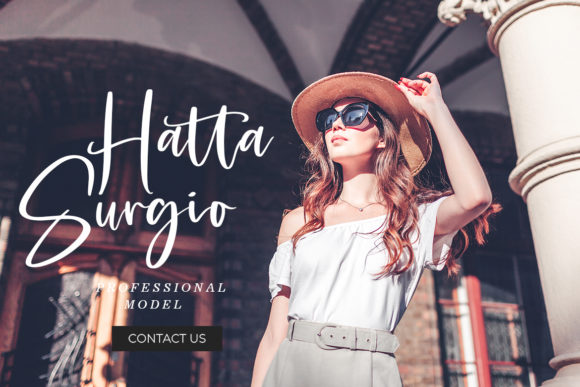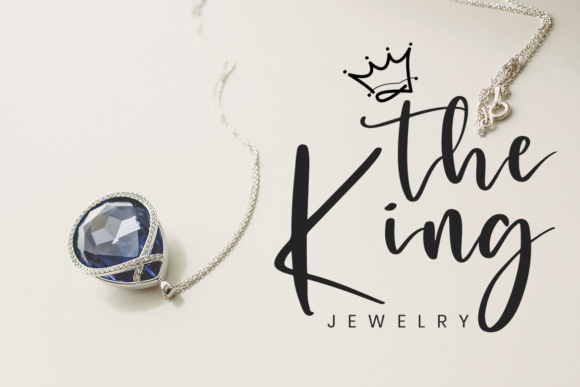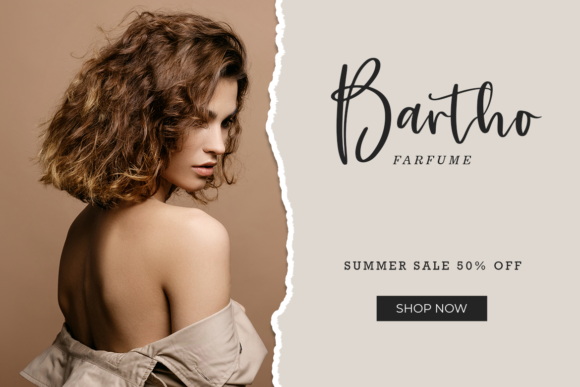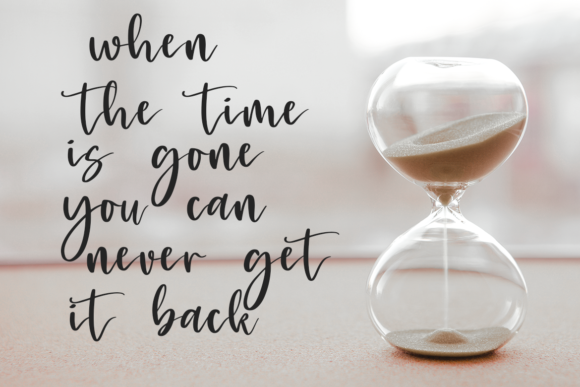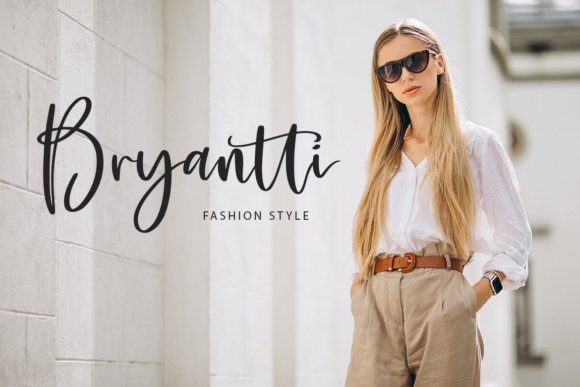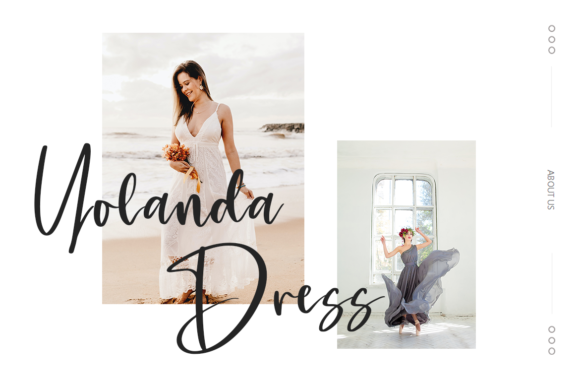
Dimalope Font: The Elegant and Charming Choice for Designers and Crafters
In the world of typography, fonts play a crucial role in conveying the tone and personality of a design. For designers and crafters looking for a font that exudes elegance and charm, Dimalope Font is an excellent choice. This beautiful handwritten font is perfect for adding a personal touch to various designs, from wedding invitations to business cards.
The Charm of Dimalope Font
Dimalope Font feels equally charming and elegant, making it an ideal choice for designs that require a sophisticated and refined look. Its unique and flowing script style gives it a distinctive character that sets it apart from other fonts. Whether you’re designing wedding invitations, thank you cards, or greeting cards, Dimalope Font is sure to make your designs stand out.
Versatility of Dimalope Font
One of the best things about Dimalope Font is its versatility. It can be used for a wide range of designs, including:
- Wedding invitations: Add a touch of elegance to your wedding invitations with Dimalope Font.
- Thank you cards: Express your gratitude in style with this beautiful font.
- Quotes: Make your quotes stand out with the elegant and cursive script of Dimalope Font.
- Greeting cards: From birthday cards to Christmas cards, Dimalope Font is perfect for all types of greeting cards.
- Logos: Add a personal touch to your logos with this unique and charming font.
- Business cards: Make a great impression with Dimalope Font on your business cards.
Why Designers and Crafters Love Dimalope Font
Designers and crafters love Dimalope Font for its unique and elegant style. Here are some reasons why:
- Handwritten touch: Dimalope Font gives your designs a handwritten touch that is perfect for adding a personal and emotional connection.
- Elegant and charming: The font’s elegant and charming style makes it perfect for designs that require a sophisticated look.
- Easy to read: Despite its cursive style, Dimalope Font is easy to read, making it perfect for designs that require a clear and legible font.
- Versatile: As mentioned earlier, Dimalope Font can be used for a wide range of designs, making it a great addition to any designer’s or crafter’s font collection.
Tips for Using Dimalope Font
Here are some tips for using Dimalope Font in your designs:
- Use it for headings: Dimalope Font is perfect for headings and titles, where its elegant and charming style can shine.
- Pair it with other fonts: Experiment with pairing Dimalope Font with other fonts to create a unique and interesting contrast.
- Adjust the size and color: Play around with different sizes and colors to find the perfect combination for your design.
In conclusion, Dimalope Font is a beautiful and elegant font that is perfect for designers and crafters looking to add a personal touch to their designs. Its versatility, elegance, and charm make it an excellent choice for a wide range of designs, from wedding invitations to business cards. With its easy-to-read style and unique character, Dimalope Font is sure to become a favorite in your font collection.